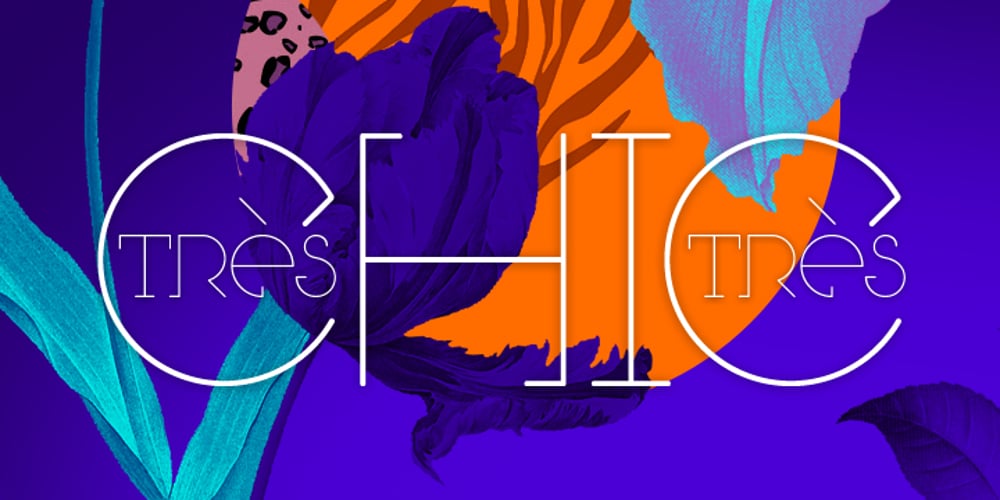
Tres Tres Chic
Tres Tres Chic font
Tres Tres Chic Font Family was designed by Eduilson Wessler Coan and published by dooType. Tres Tres Chic contains 1 styles and family package options. First partnership between Firmorama.com & dooType studios, Très Très Chic is a display font, developed to be versatile and illustrative, with strong features that provide personality to the drawing. The characters were built based in primary geometric forms and the gentle delicate lines, in their main purpose, make this font very appropriate to the feminine universe. On the other hand, this font has its form filled with black, that could be applied evenly for a composition more dynamic and amazing, with variation of shapes and weight.